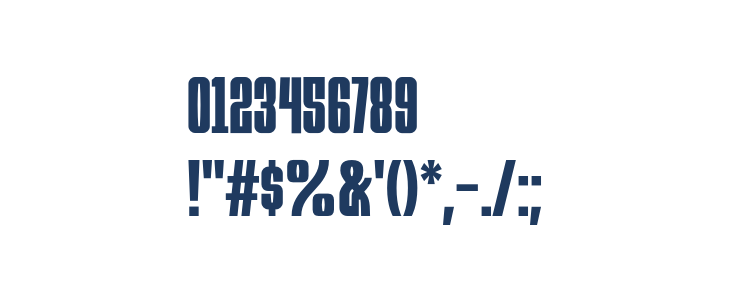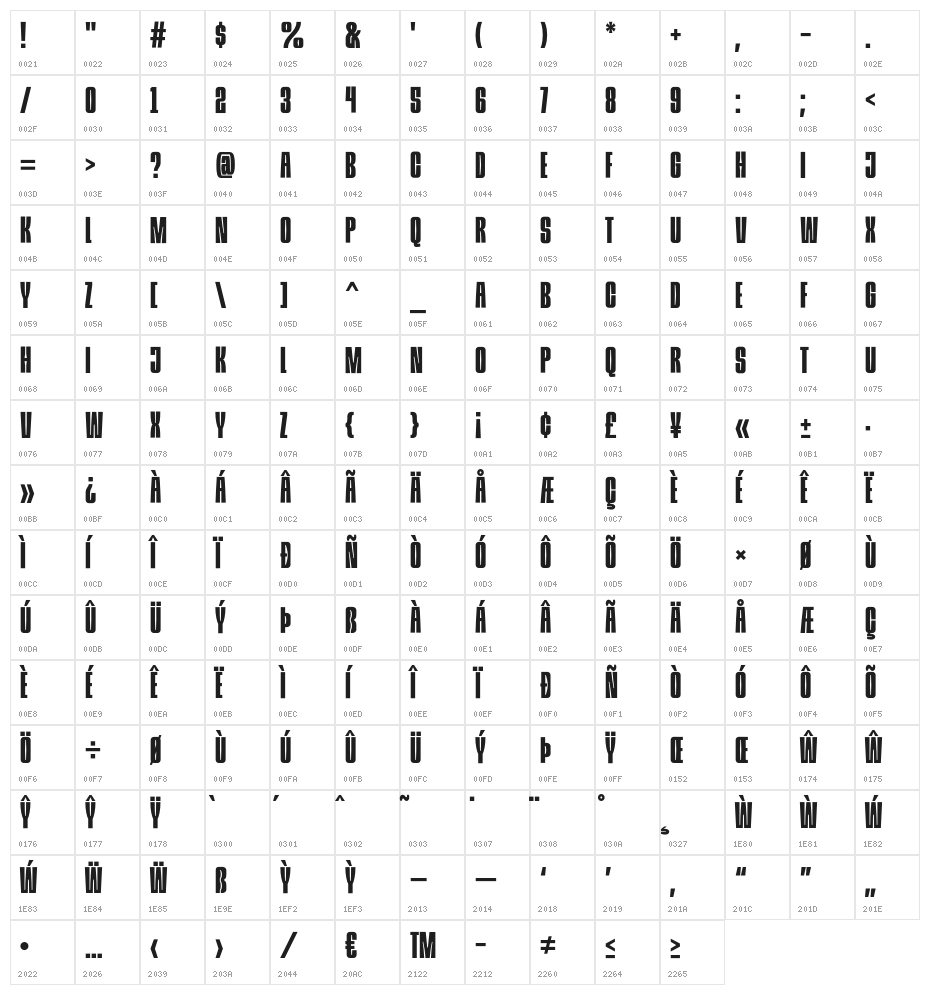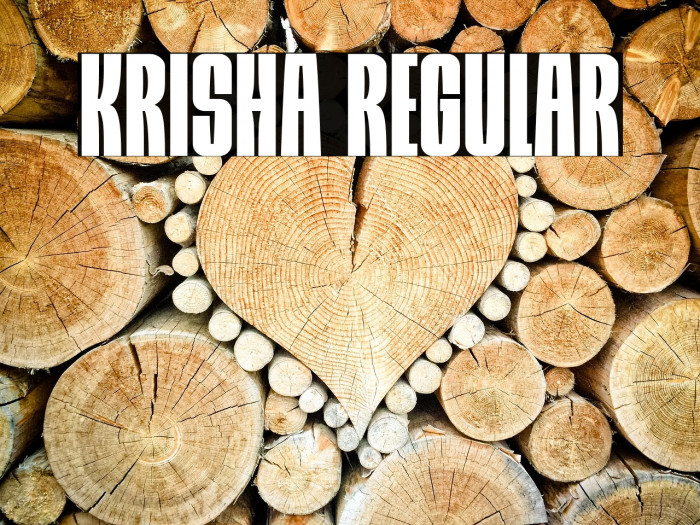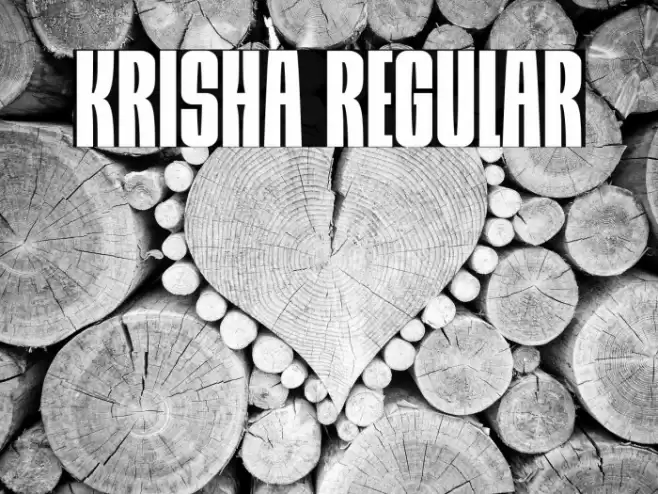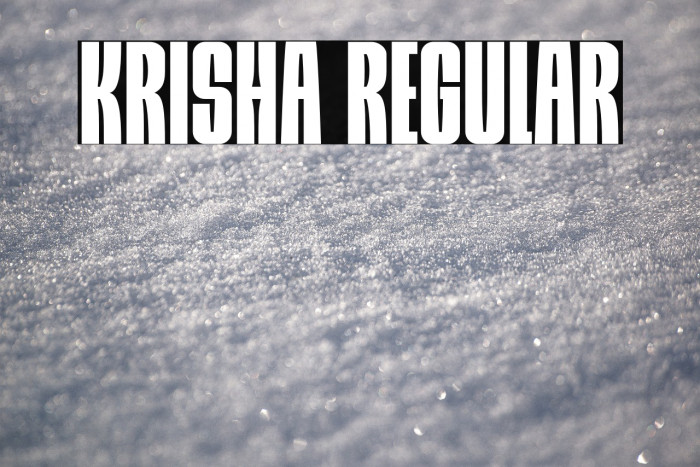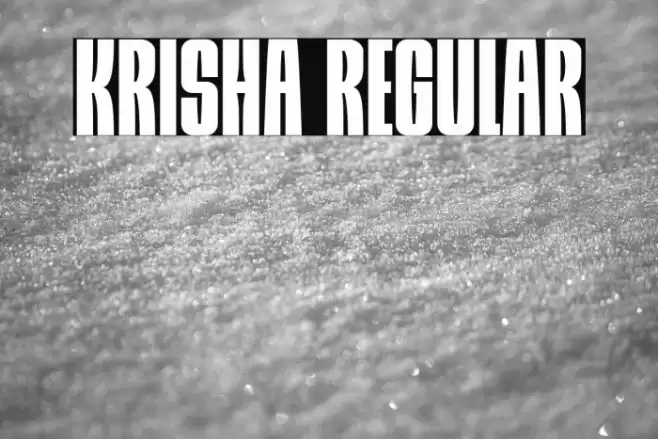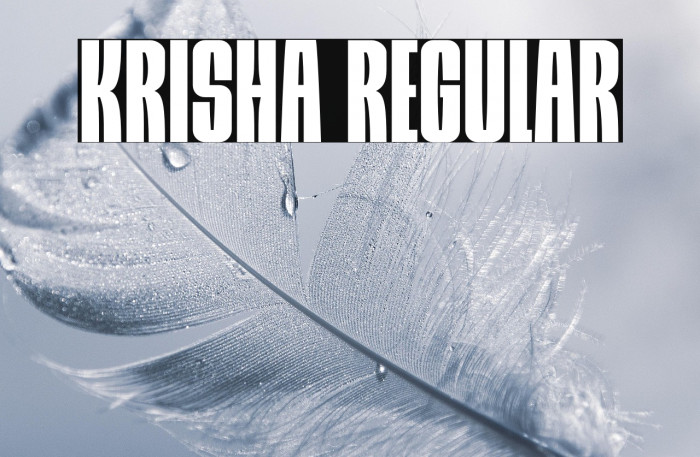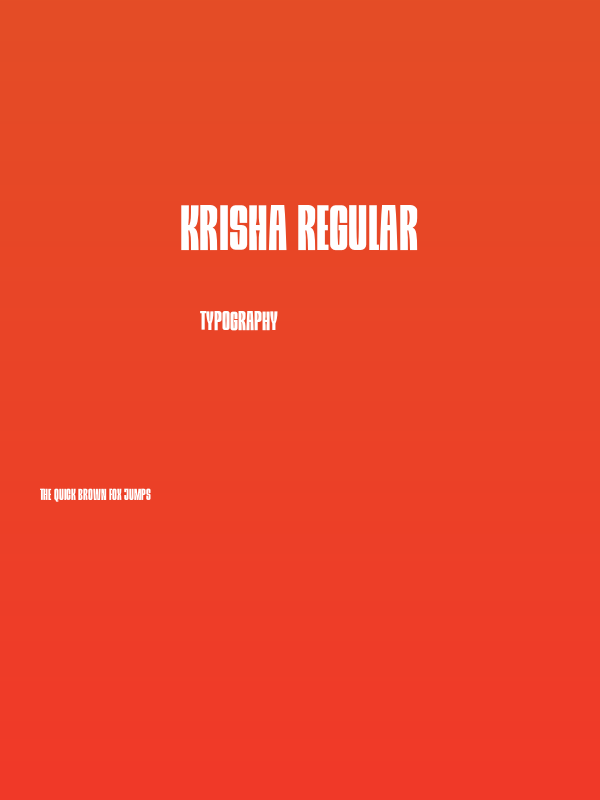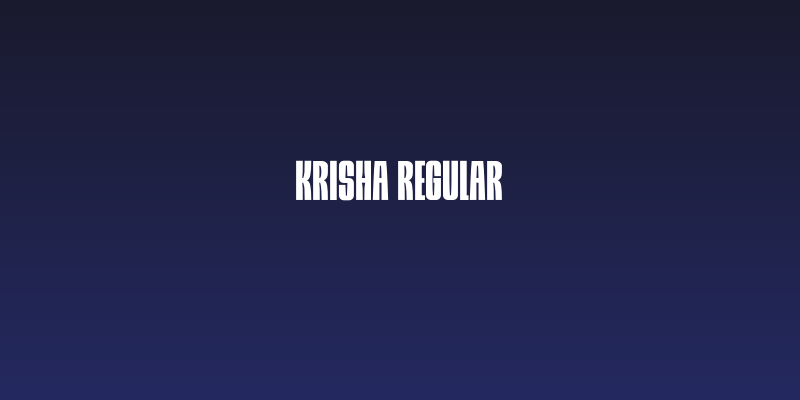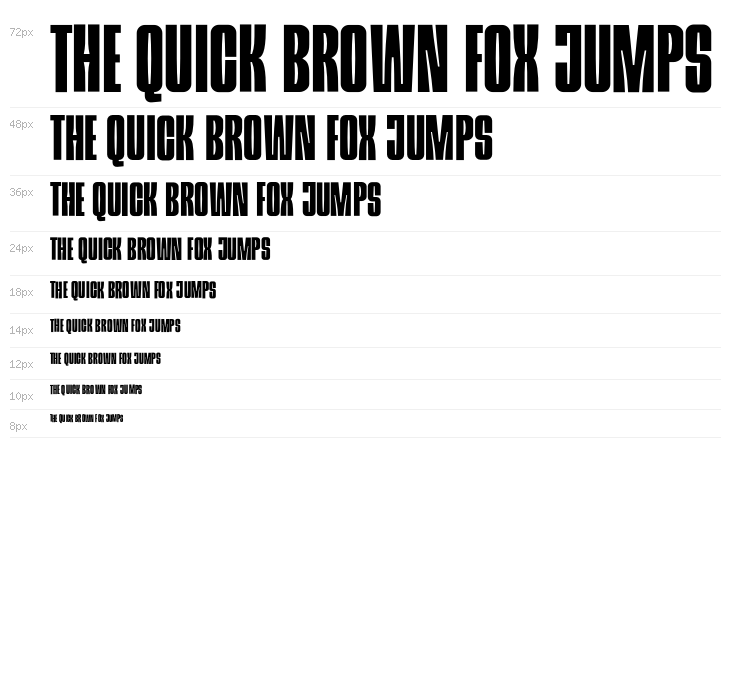
Krisha Regular Font
Krisha Regular Description
This font features a bold and impactful design, characterized by thick, uniform strokes and a strong presence. The uppercase letters are particularly striking, with a condensed form that emphasizes verticality. The numbers and special characters maintain the same boldness, ensuring consistency across all elements. The overall style is modern and assertive, making it suitable for projects that require a commanding visual impact. The font's design is clean and straightforward, with no additional embellishments, focusing on delivering a clear and powerful message.
| Proposed Projects | Ideal for posters, headlines, branding, and any design needing a bold statement. |